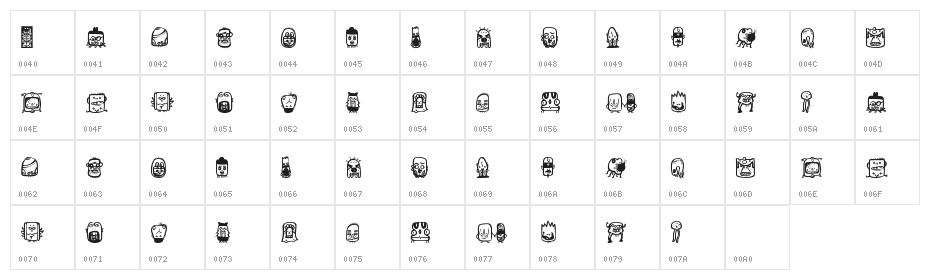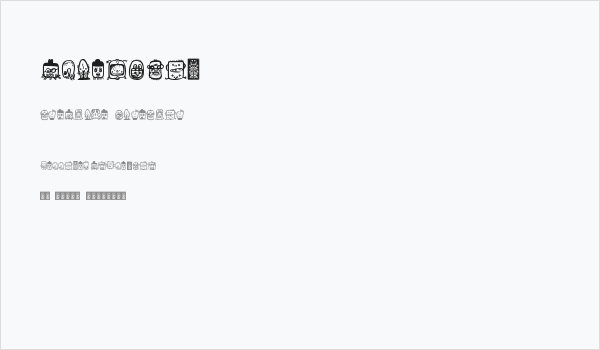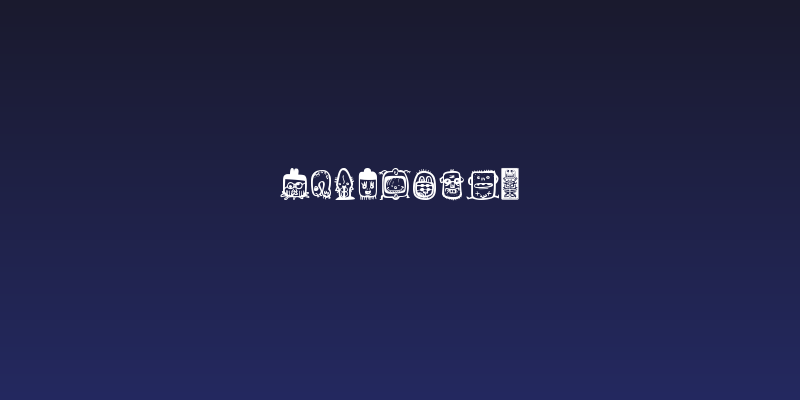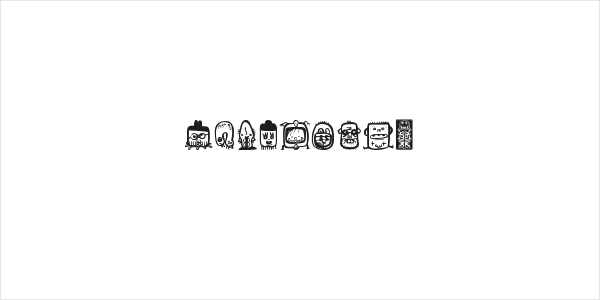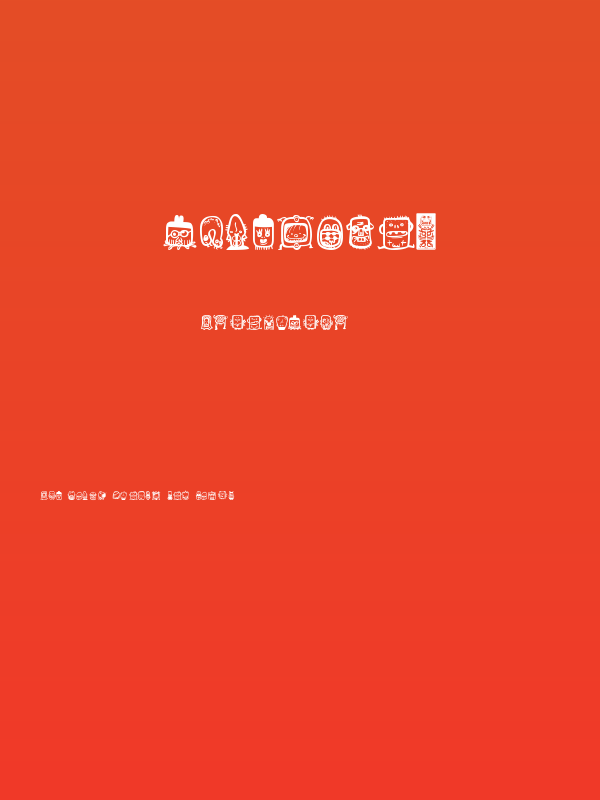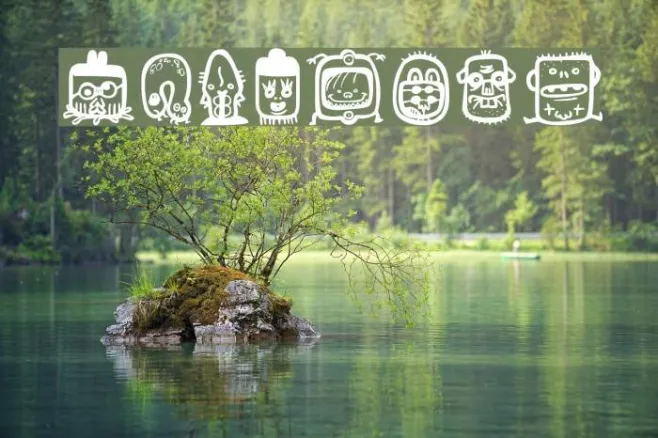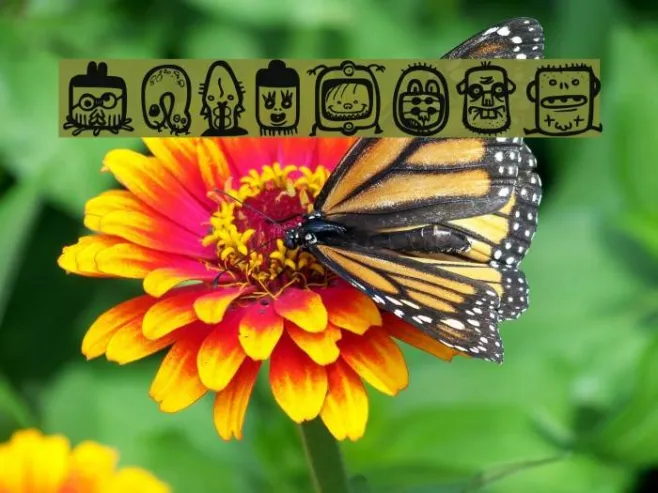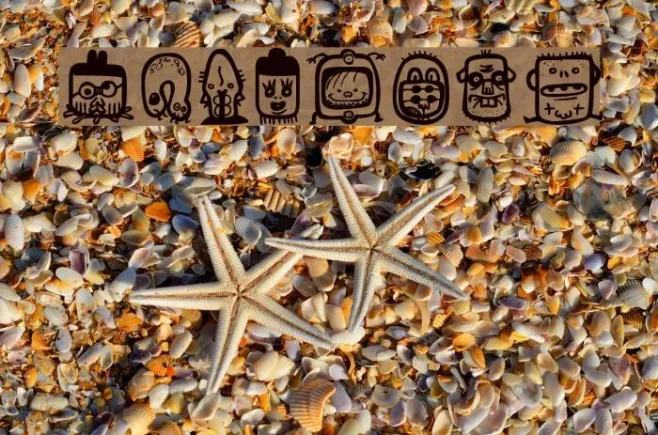
aliendco2 Font
aliendco2 Description
This font is a playful and whimsical collection of character illustrations, each representing a letter or symbol. The designs are cartoonish and imaginative, featuring a variety of quirky and unique creatures. Each character is distinct, with exaggerated features and expressive faces, making the font highly decorative and artistic. The style is consistent throughout, with bold lines and a hand-drawn appearance that adds to its charm. This font is not suitable for traditional text but serves as a creative and fun way to convey messages through visual storytelling.
| Use Case | Logos, Art projects, Posters |
| Proposed Projects | Ideal for children's books, creative posters, art projects, and playful branding. |